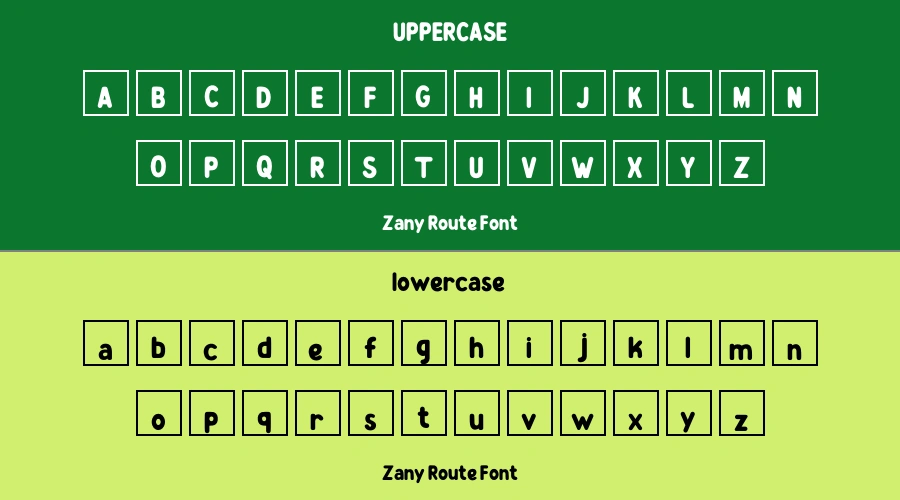
About Zany Route Font
Designed with precision, Zany Route Font merges creative flair with classic beauty in every character. This versatility makes it particularly effective for classic books, where accuracy and professional standards directly impact communication quality. Each letterform demonstrates meticulous craftsmanship.
Technical excellence shines through elements like tapered strokes and dingbat elements, enhancing typographic versatility. In identification tags settings, Zany Route Font proves its worth through superior impact retention. The thoughtful execution of aperture size and cultural relevance ensures professional results.